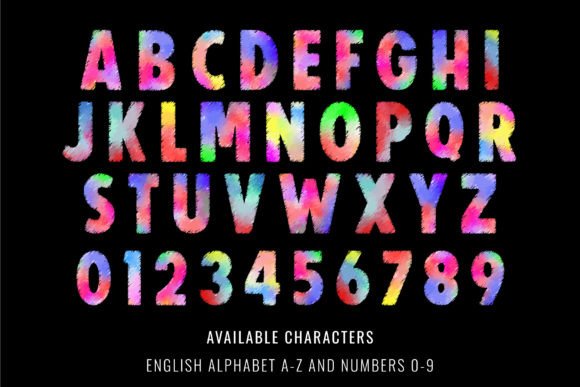
Watercolor Splash Font
Introducing “Watercolor Splash” – a colorful watercolor font style designed for visual impact. All the letters in this font are colored brightly and vividly with colors overlay. It is the best choice for creating eye-catching postcards, tot bags, t-shirts, and many more. Perfect for positive art, children’s design, vibrant advertising, and colorful identity. Add it confidently to your projects, and you will love the results.